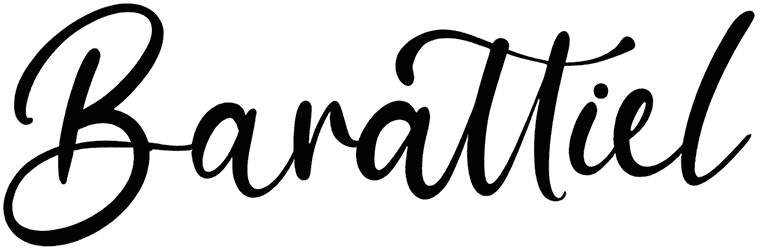
Barattiel Font
Barattiel is the perfect romantic font to add a touch of love to your logo design, wedding invitations, and friendly letters. This cursive font adapts to the taste of almost every strict designer and can take a special place in their treasure.
So if you own a business or work with an entrepreneur, Barattiel is the most suitable font to create a sense of authenticity and credibility for different brands.